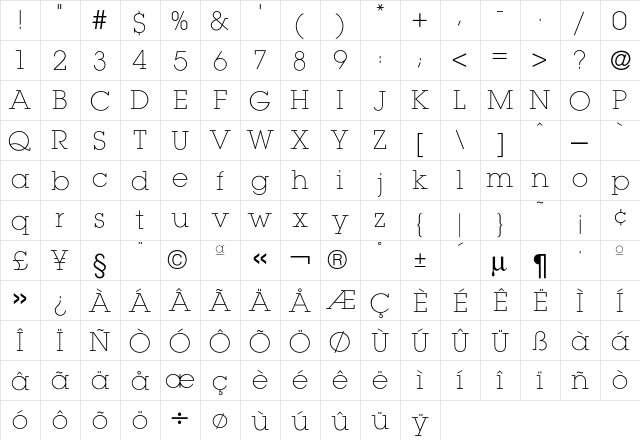
Lubalin XLight
Design Context for Lubalin Typeface
Lubalin offers clean, dependable letterforms without strong stylistic allegiance, making it a practical choice for designers who need flexibility. The delicate stroke weight brings airiness and refinement to layouts.
Pro Tip: Use Lubalin in both headline and body roles to test its range before committing to a single application.